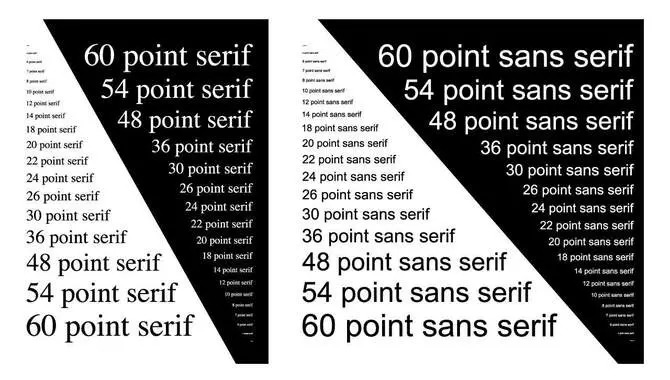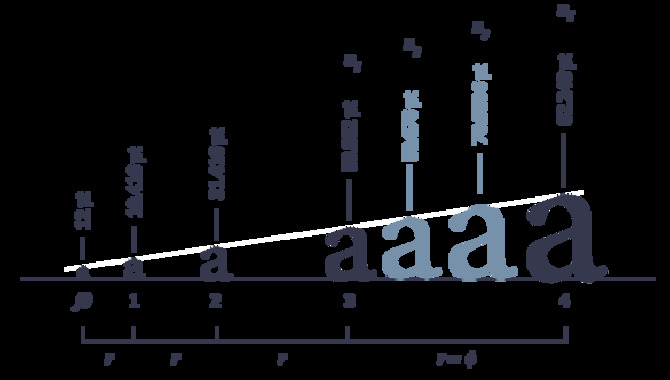
Font size is an important aspect of typography and graphic design. When choosing the right font size, there are a number of factors to consider, including readability, legibility, and overall aesthetic appeal.
One commonly used font size is 14pt, which falls within the range of medium-sized fonts. This font size can be a good choice for body text in printed materials such as books, magazines, and newspapers. It is also commonly used for web content, as it strikes a balance between readability on both desktop and mobile devices.
However, Here we will explore the benefits of using 14 font sizes on your website and guide you through the best practices for implementing it. We will also discuss factors you need to consider while choosing a font size for your website. So, whether designing a new website or revamping an existing one, read on to learn five ways to choose the right 14 font size for your website and create a seamless reading experience for your visitors.
5 Ways To Choose The Right 14 Font Size For Your Website
Choosing the right font size for your website may seem like a minor detail, but it can have a significant impact on your website’s overall design and user experience. Font size plays a crucial role in enhancing readability and accessibility, making it easier for users to comprehend the content on your website.
This is particularly true for mobile devices, where small text sizes can cause eye strain and frustration. Choosing the right font size for your website can greatly impact the readability and overall user experience. A font size of 14 is a popular choice, as it strikes a balance between being easy to read and not taking up too much space on the screen. Here are five ways to choose the right 14 font size for your website:
Consider Your Target Audience
When choosing a font size for your website, it’s critical to consider your target audience. A larger font size may be more appropriate if your website caters to an older demographic. Alternatively, if your website is primarily geared towards younger audiences, you could go with a smaller font size. Understanding your target audience and their preferences can help you make an informed decision about the ideal font size for your website.
Test Different Sizes
When it comes to font size, it’s important to find the right balance between legibility and aesthetics. While 14pt font is often considered a good starting point for body text, it’s worth experimenting with different sizes to see what works best for your design.
Factors such as the typeface, line spacing, and overall layout can all affect how readable text appears at different sizes. It may also be helpful to consider the intended audience and context of the design when choosing font size. Ultimately, the goal should be to create a visually appealing design that is easy to read and effectively communicates its message.
Use A Legible Font
When it comes to font size, 14 is a popular choice for many documents and publications. However, it’s important to also consider the legibility of the font you choose. A font that is too small or difficult to read can make it challenging for readers to engage with your content. When selecting a font, opt for one that is clear and easy on the eyes.
Sans-serif fonts like Arial and Helvetica are often good choices for readability. Additionally, make sure there is enough contrast between the text and background colour to ensure maximum legibility. Choosing a legible font and ensuring adequate contrast can make your content more accessible and reader-friendly.
Check For Consistency
Consistency is key when it comes to font size. Ensure that font sizes are consistent throughout your website or publication, as inconsistent fonts can make for a disjointed design and confuse readers. It’s recommended to have a clear hierarchy of font sizes, with larger fonts for headings and smaller fonts for body text.
This not only helps with readability but also organizes information in a logical and easy-to-follow manner. Consistency in font size can contribute to a cohesive and professional-looking design, which ultimately enhances the user experience.
Consider Responsive Design
In today’s digital world, responsive design is becoming increasingly important. With so many people accessing content on their mobile devices, it’s essential to consider how your font size will look on different screen sizes.
A font that looks great on a desktop computer may be too small or difficult to read on a mobile device. Consider using responsive font sizes that adjust based on screen size or create separate stylesheets for different devices. This will ensure that your content remains accessible and easy to read, no matter how it’s being viewed. You can create a visual by considering audience needs and designing with legibility in mind.
The Importance Of Font Size In Web Design
Choosing the right font size is paramount for website usability and readability. When it comes to creating a website, designers often focus on the aesthetics of their design, but they must also consider how easy it is for users to read their content. Font size plays an integral role in this aspect of web design, especially given the growing use of mobile devices.
5.What Are The Best Fonts For Designing A Website?
Ans: Some of the most popular fonts for web design include Arial, Helvetica, Times New Roman, and Verdana. Sans-serif fonts are generally preferred for website body text as they are easier to read on screen. To add visual interest to your website design, consider using a combination of font styles and sizes. However, it’s essential to choose a font style that aligns with the overall aesthetic and brand image you want to convey on your website.